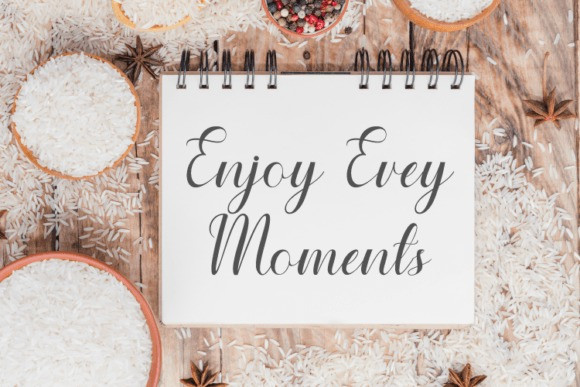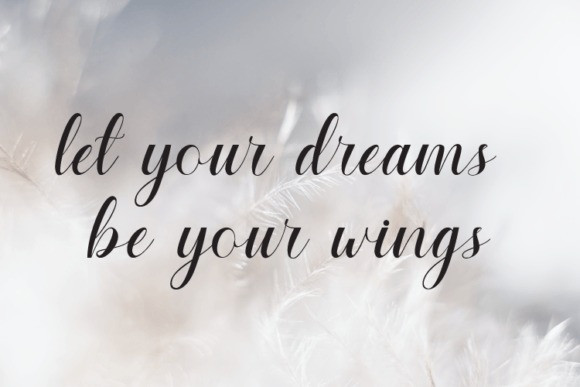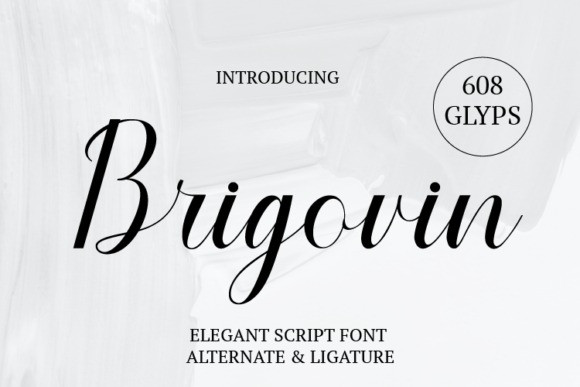
Brigovin Font
Brigovin Script Font a elegant handwritten font. It is the best choice for creating eye catching logos, branding and quotes. Every letter has a unique and beautiful touch, which will make your design come alive! Its authentic look will add a personal and realistic feel to your designs.